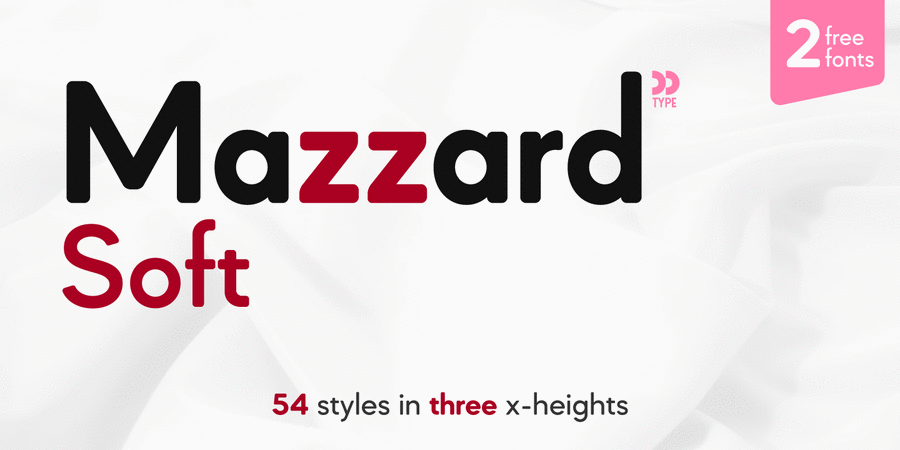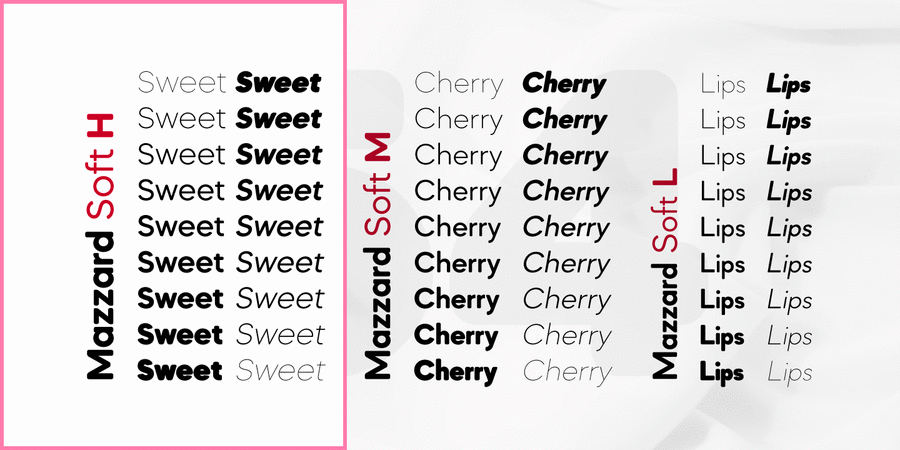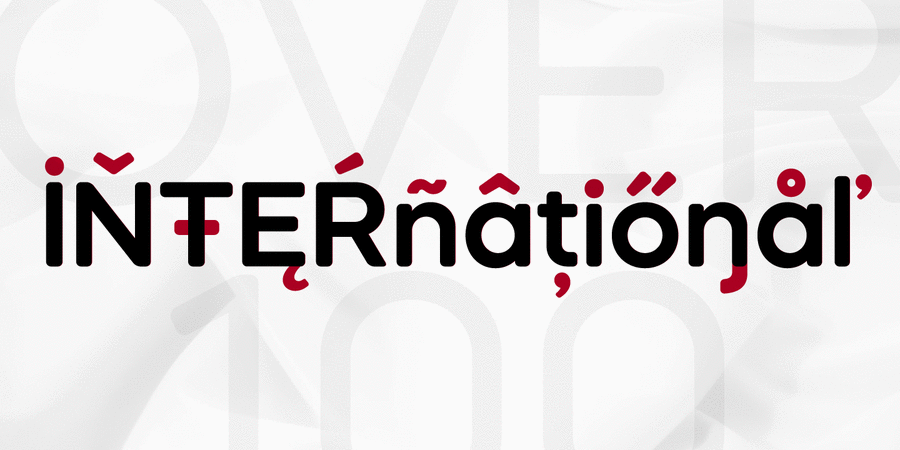
About Mazzard Soft H is a part of Mazzard Soft font family – rounded version of Mazzard superfamily. It has two more geometric grotesques with different x-heights (M and L).
It features rich language support, includes Cyrillic, and offers a wide variety of alternate forms.
The typeface was designed by Oleh Lishchuk in 2019.